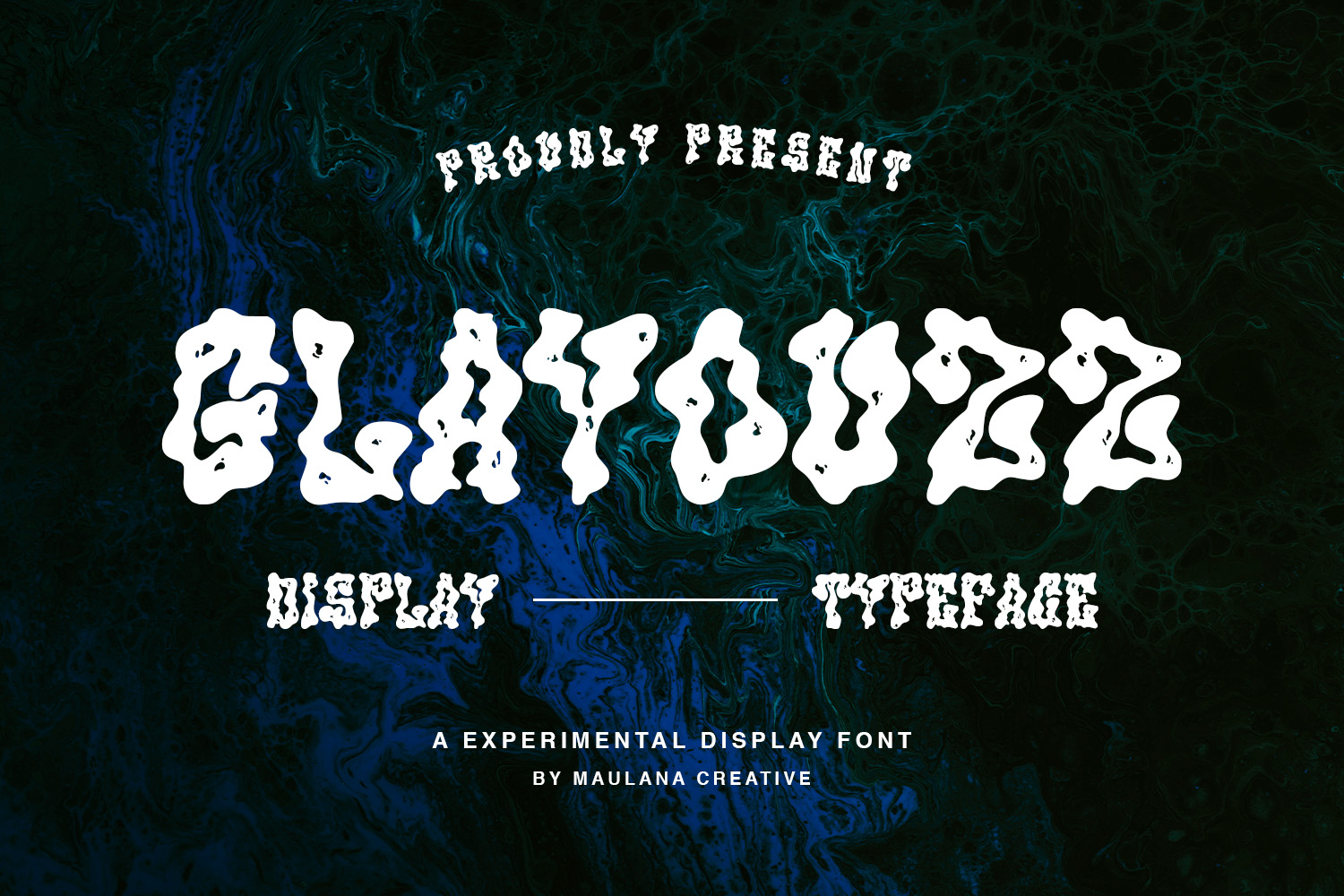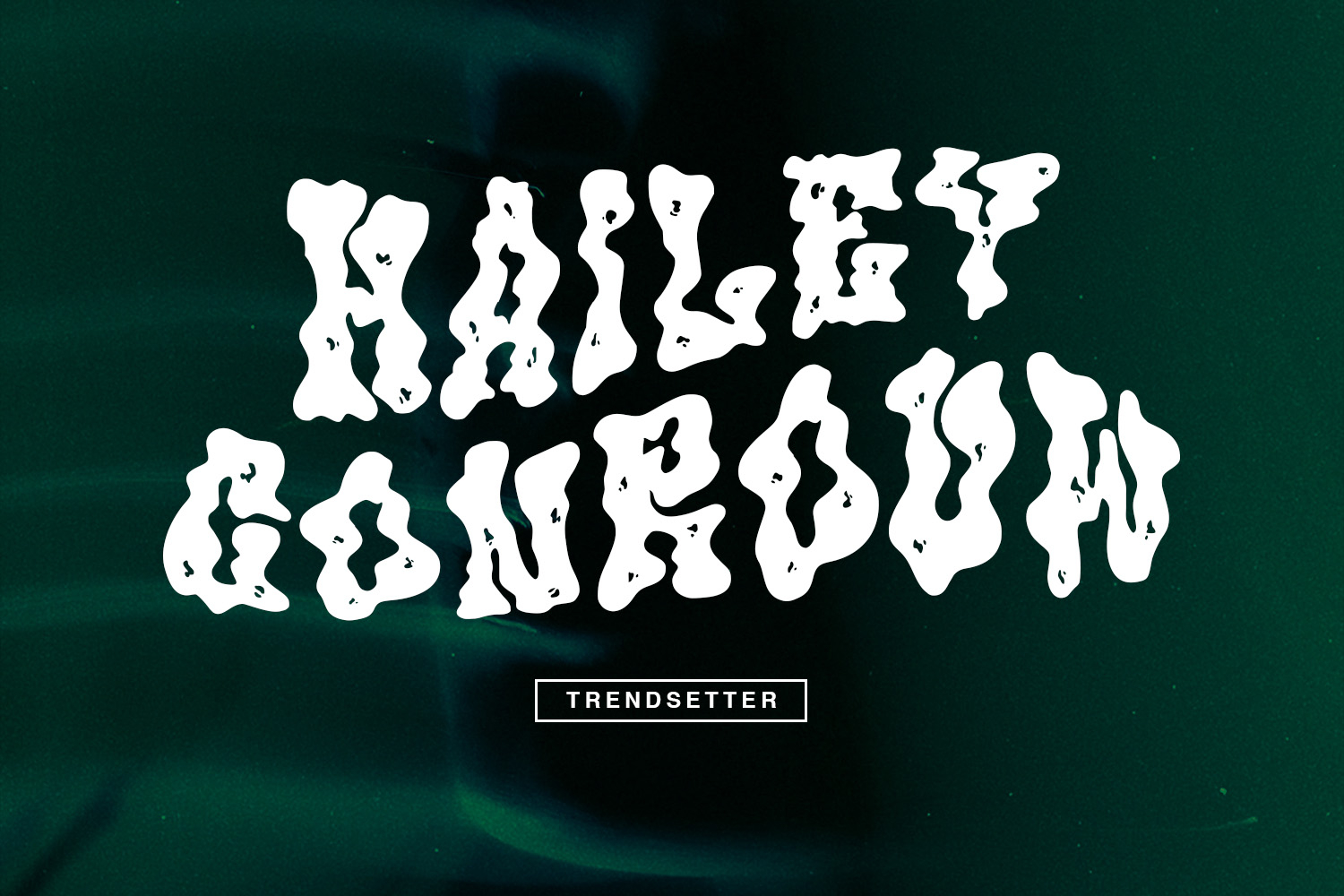
Glayouzz is a experimental handmade display font. With bold stroke and fun character. To give you an extra creative work. Glayouzz font support multilingual more than 100+ language. This font is good for logo design, Social media, Movie Titles, Books Titles, a short text even a long text letter and good for your secondary text font with sans or serif. Make a stunning work with Glayouzz font.